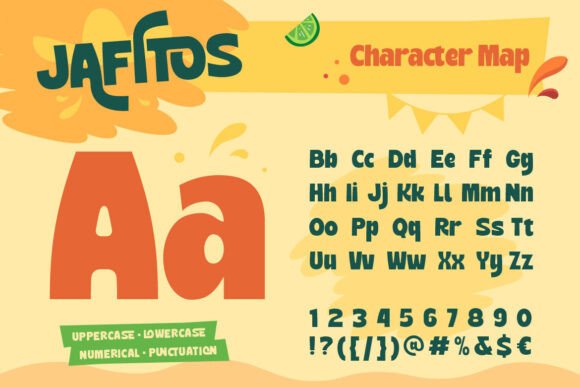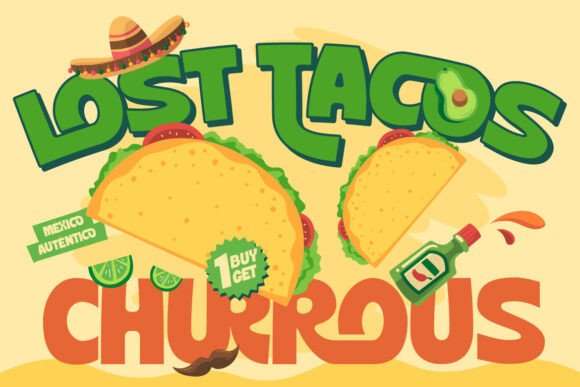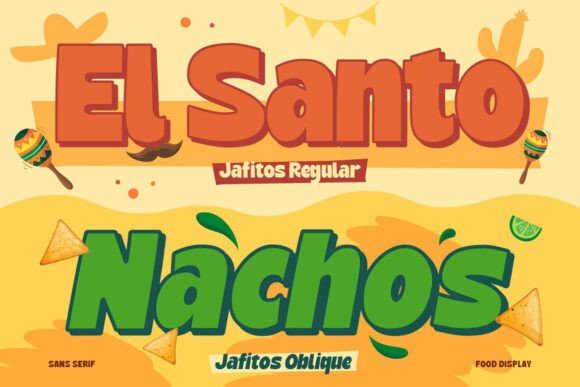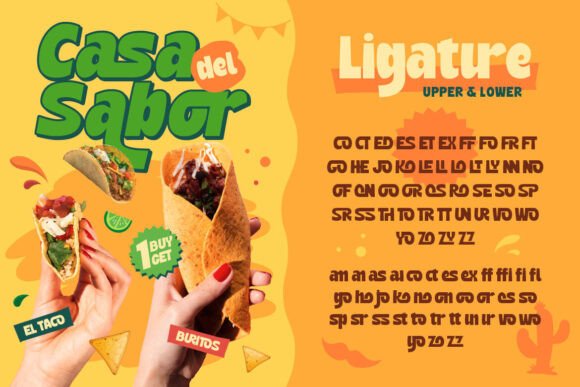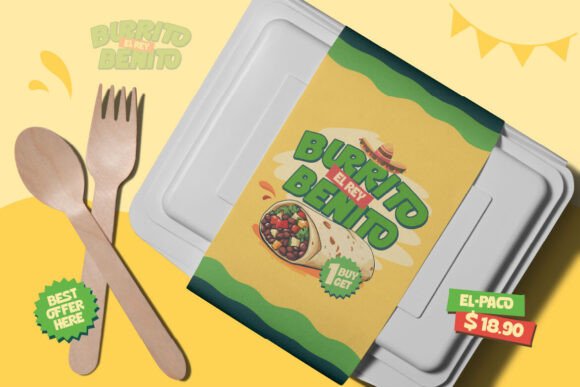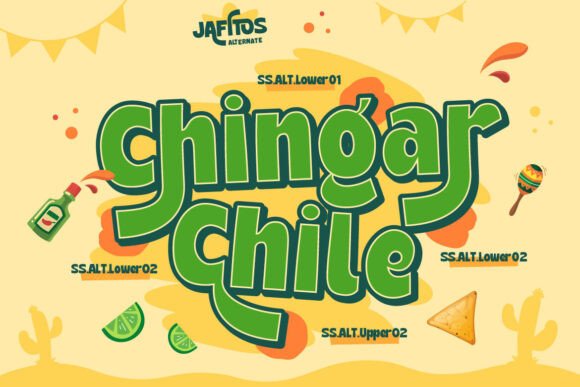
Introduction to Jafitos Font
Have you ever stumbled upon a font that instantly sparks creativity and makes you feel like you’re ready to tackle your next design project? For me, that moment came when I discovered the Jafitos Font. Its playful and bold look is like a breath of fresh air for designers, adding a much-needed injection of fun and personality to our work.
As a valuable design resource, the Jafitos Font is perfect for a wide range of creative projects, from eye-catching packaging and posters to trendy logos and social media graphics. Its high-quality design and transparent background make it easy to integrate into any design, ensuring a seamless and professional finish.
Key Features of Jafitos Font
- Unique, elegant design suitable for a wide range of applications, from logos to typography
- Perfect for designers and artists looking for a versatile and stylish font for their next creative project
Honest Review: Jafitos Font
As a designer, I’m always on the lookout for high-quality design resources to elevate my creative projects. The Jafitos Font caught my eye with its unique and stylish design. One of the standout features of this font is its ability to be used on a transparent background, making it perfect for logo designs or other graphics that require a clean and minimalist look.
Here are some of the things that work well with the Jafitos Font:
- ✨ Unique and stylish design that sets it apart from other fonts
- ✨ Perfect for creative projects that require a high-end look
- ✨ Can be used on a transparent background for a clean and minimalist look
- ⚠️ Limited character set, which may not be suitable for longer blocks of text
- ⚠️ May not be as versatile as other fonts, requiring more design work to achieve the desired look
Overall, I’m impressed with the Jafitos Font and its potential to elevate my creative projects. While it may have some limitations, its unique design and versatility make it a valuable addition to my design toolkit.
The Jafitos Font is a high-quality design resource that can elevate your creative project. With its unique and stylish design, it’s perfect for various applications.